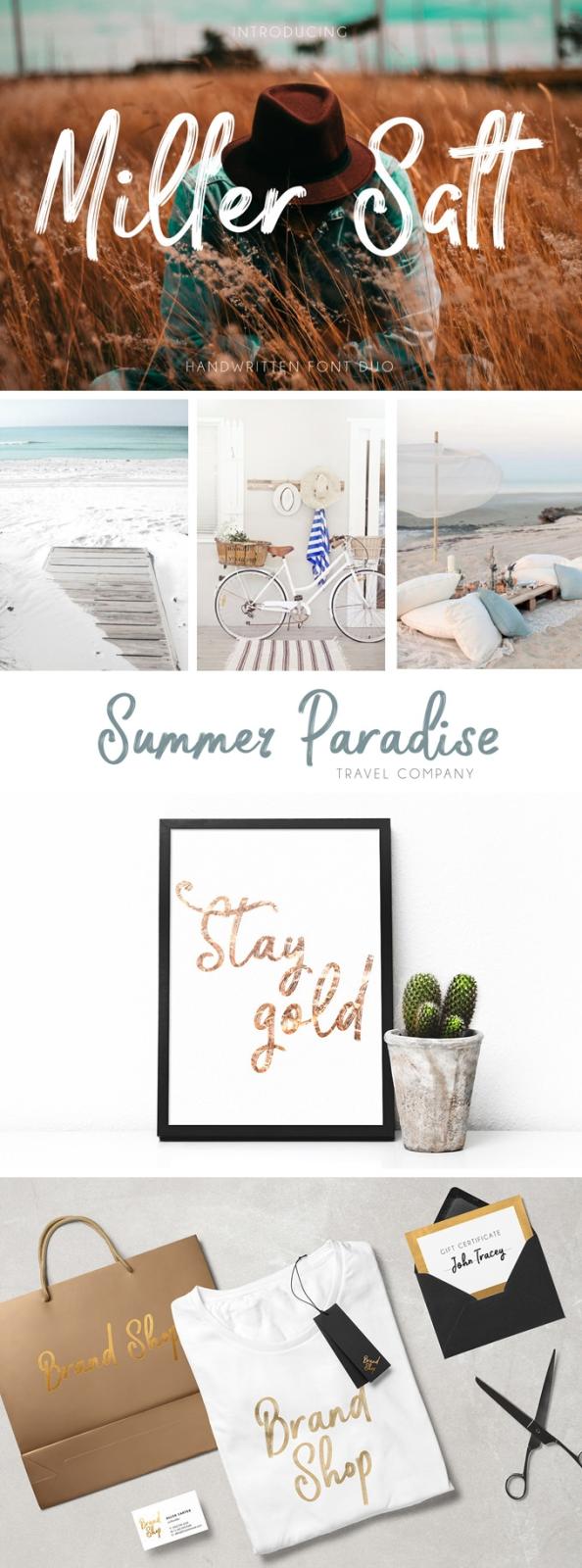
Were proud to present these two outstanding script fonts, so free and savage, like ripe wheat, swinging in the autumn wind. And thats not all about them, well tell you!
They do bring the feeling to have been drawn with a dry marker or a brush, so in these simple, clean lines vibrancy and tenderness embrace. They are presented in TTF, OTF, and Webfont formats to bring absolute perfection from your idea to a site youre working on. And thats not all! These fonts have been crafted for branding and decor, eye-catching logos or just clothing.